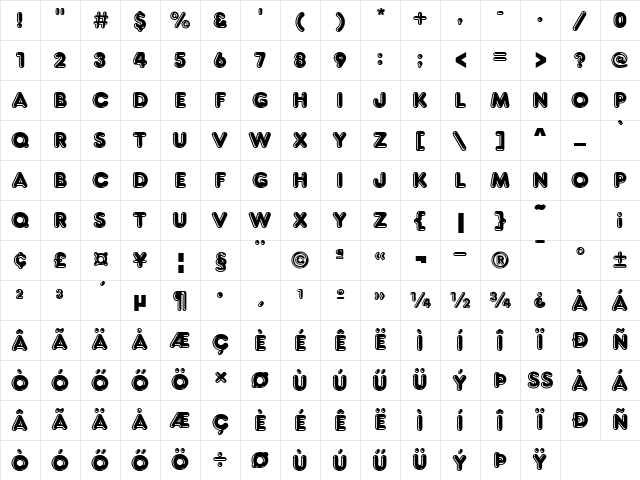
H_FrankfurterHigD Regular
Design Context for H_FrankfurterHigD
H_FrankfurterHigD is a composed and adaptable typeface that performs quietly and consistently across a wide range of design contexts.